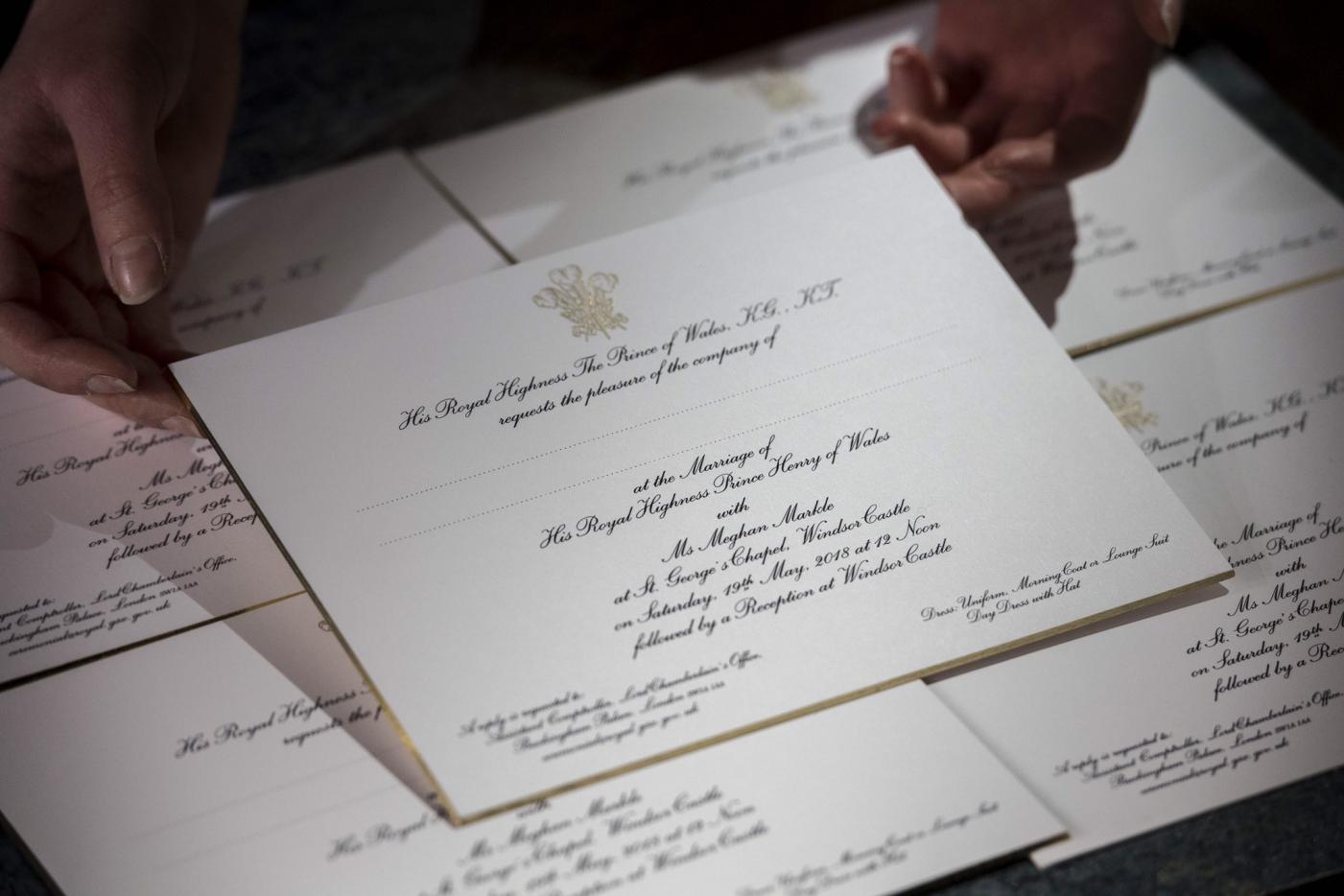
Font used in Prince Henry's wedding invitations
Can anyone identify the font used in Prince Henry (Harry)'s wedding invites just out last week.  I've searched but have been unable to find anything close.  Also, free would help as it is for a craft.    Here is a link to a photo of it.
Sorry but Shelley Andante is very close but the letter "r" is not the same :(
And Shelley Allegro don't match at all.
Thx a lot Kevin. You probably right, Marina Script is a good fit. (and Palace Script seems to be the most similar digitized font)
The Royal Invitations have been made by Barnard and Westwood . Did They appropriate Marina Script and digitize it?
Possibly, but think about how a printer known for bespoke projects and having a royal warrant might be creating these items—it is more likely that they own the typeface in its original metal form, and that the invitations were printed via letterpress, not via sheet-fed offset printing.